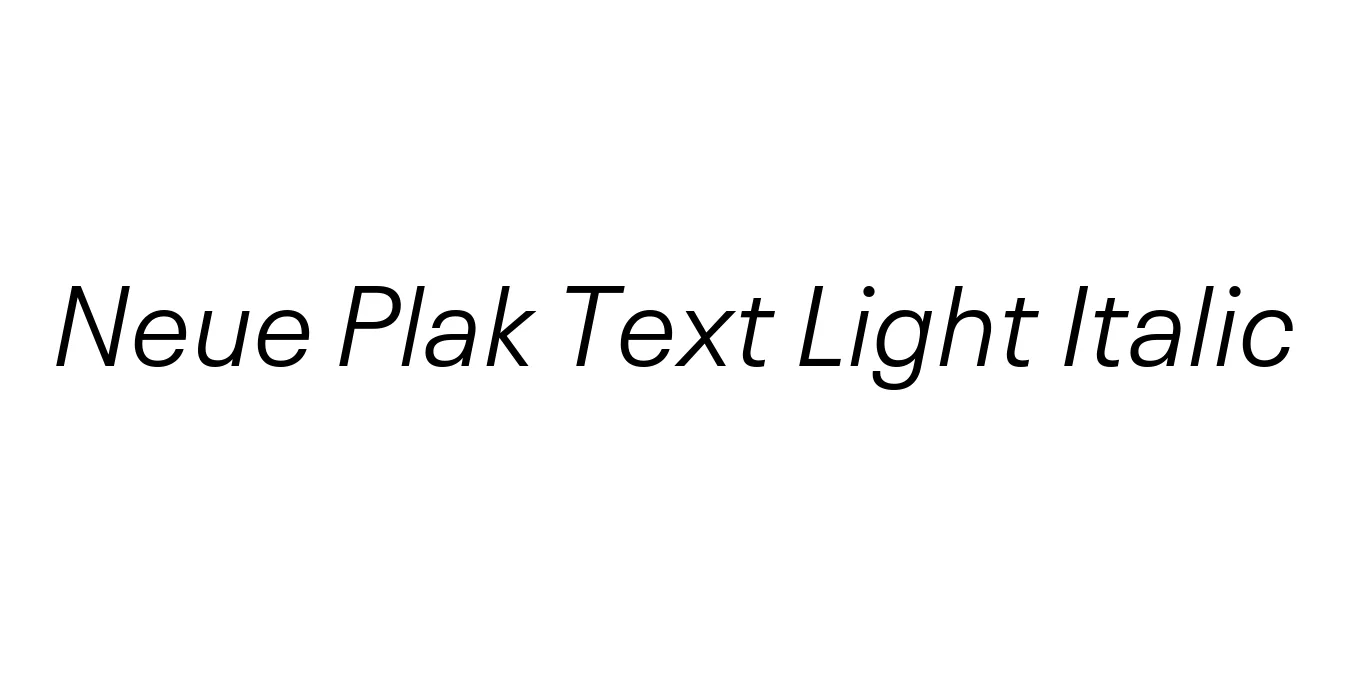
Neue Plak Text Light Italic
Designed by Linda Hintz, Toshi Omagari
Neue Plak is a expansive and sophisticated revival of Paul Renner’s classic 1928 wood type design, Plak. While the original typeface was limited in its range, the Monotype Studio meticulously expanded the family to include 108 different styles, ensuring it meets the rigorous demands of modern digital typography. The Text Light Italic weight offers a lean, professional aesthetic that bridges the gap between industrial grit and contemporary elegance.
The typeface is defined by its unique geometric structure and distinct personality, specifically seen in the lowercase 'a' and 'r' forms. This specific light italic variant provides a subtle emphasis that is highly legible in longer blocks of text without appearing too heavy. It is part of a larger system designed to function seamlessly across branding, editorial layouts, and complex user interfaces where clarity and character are equally important.
Neue Plak Text Light Italic Best Uses
Perfect for secondary body copy, footnotes, and elegant pull quotes in print and digital magazines.
Ideal for brands looking for a unique, structured, and modern sans-serif voice.
Highly effective for labels and small text elements in mobile apps that require a clean look.
Works well in high-end marketing materials that prioritize a sophisticated and minimalist aesthetic.